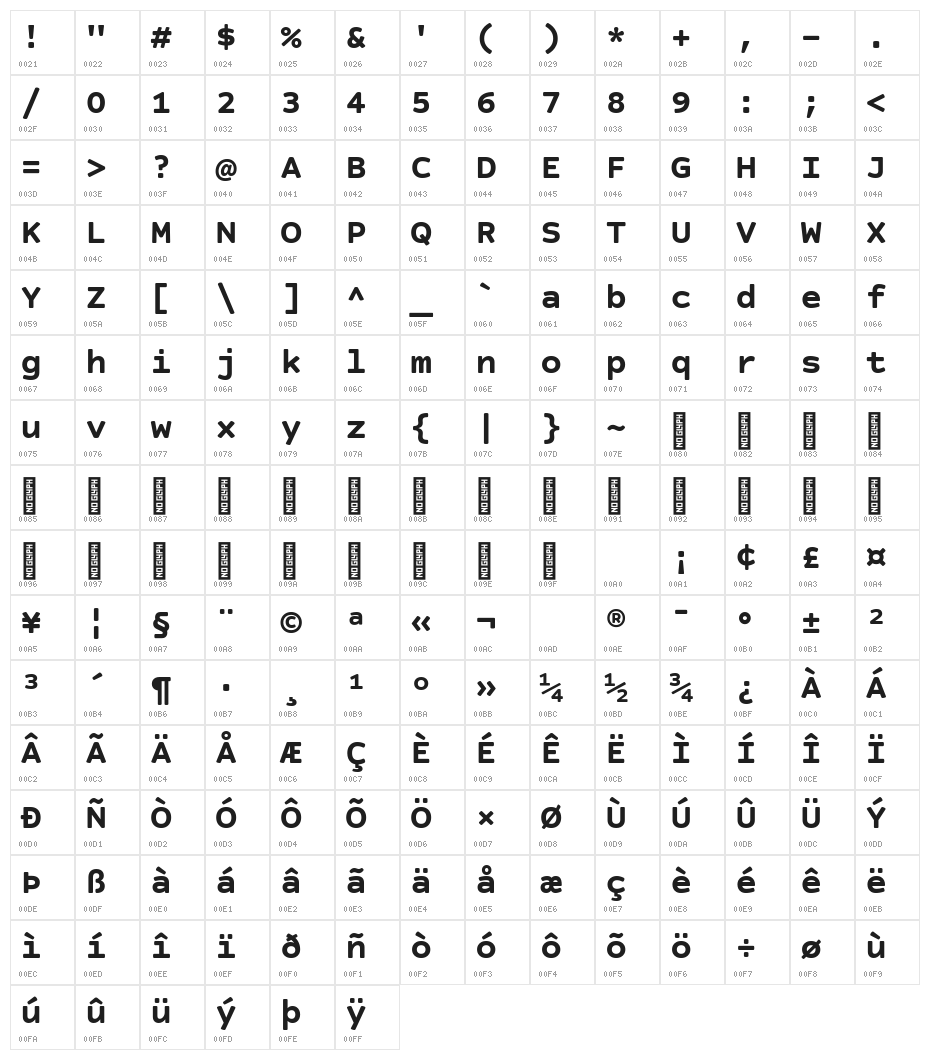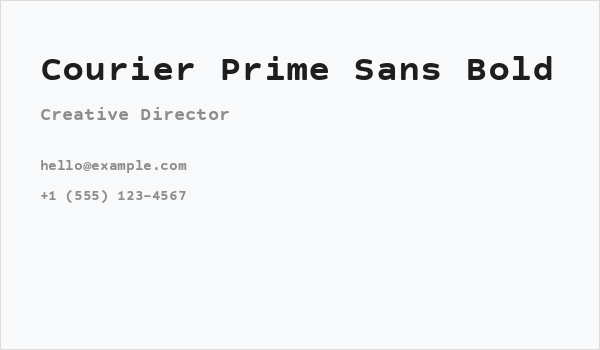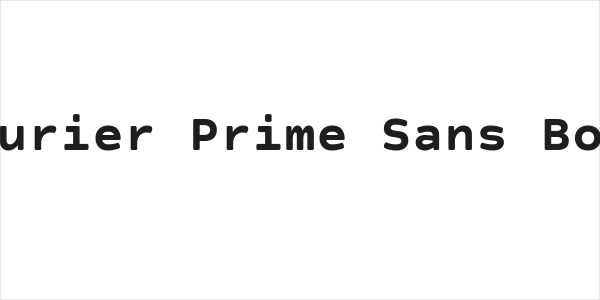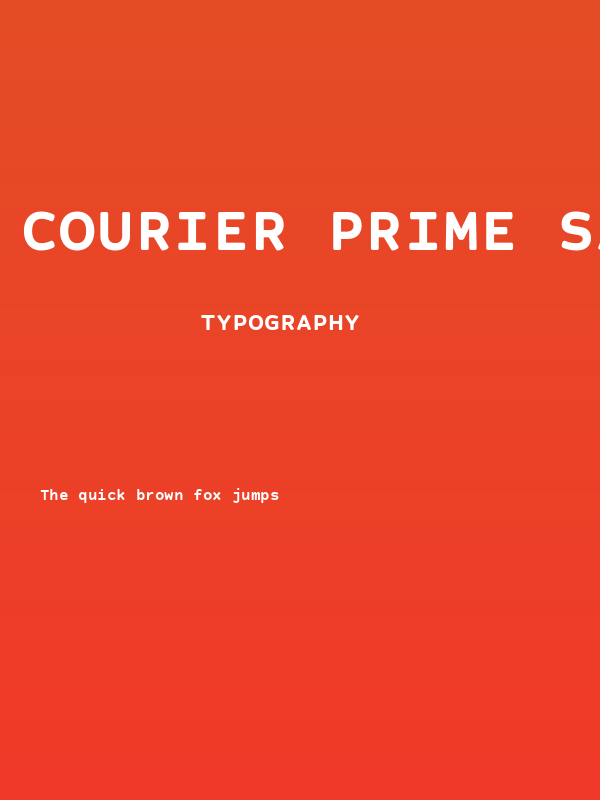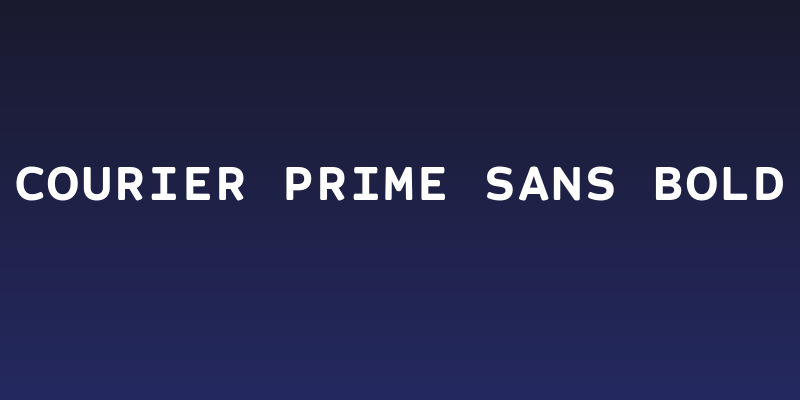
Courier Prime Sans Bold Font
Courier Prime Sans Bold Description
This font exhibits a clean, modern aesthetic with a monospaced design, making it highly legible and suitable for coding and technical documents. Each character is evenly spaced, contributing to its clarity and readability. The bold weight adds emphasis and strength to the text, while the sans-serif style ensures a contemporary look. The uniformity of the characters provides a structured and organized appearance, ideal for professional and technical use. The font's simplicity and precision make it versatile for various applications, from digital interfaces to printed materials.
| Use Case | Coding, Technical documents, Digital interfaces |
| Proposed Projects | Ideal for coding, technical documents, digital interfaces, and professional presentations. |